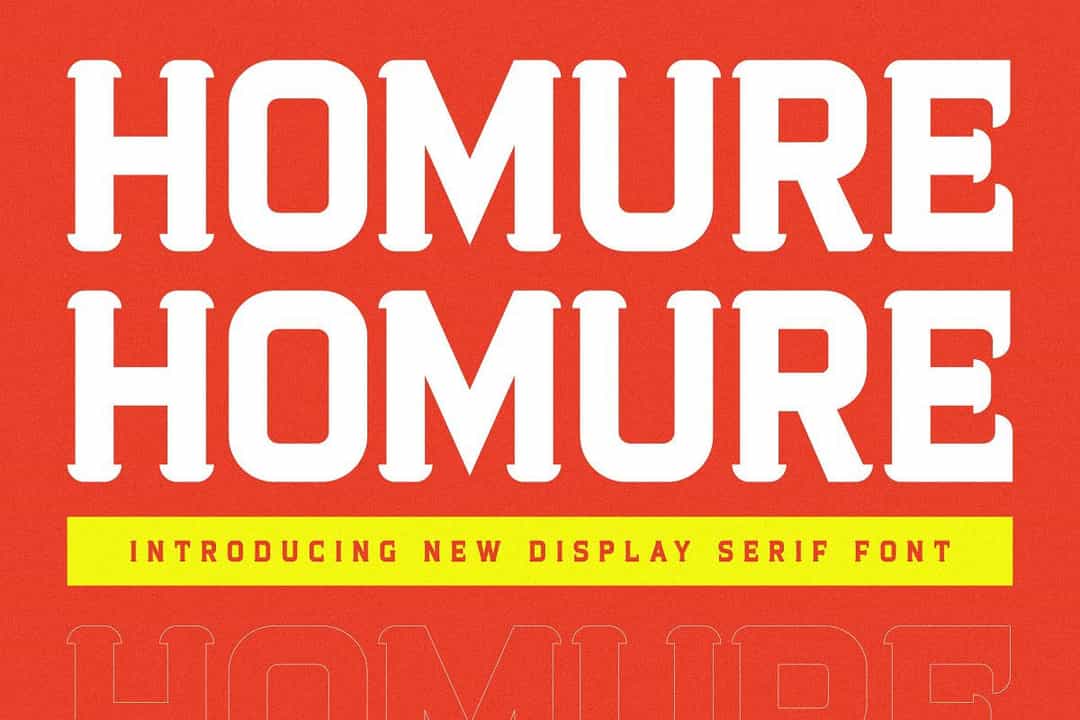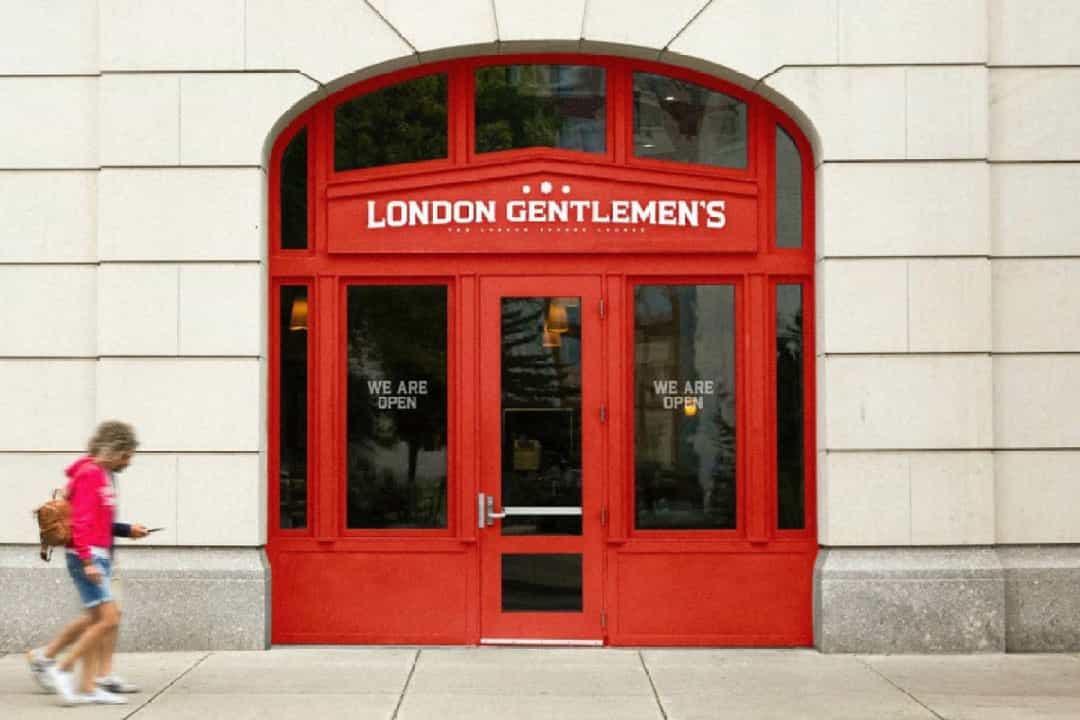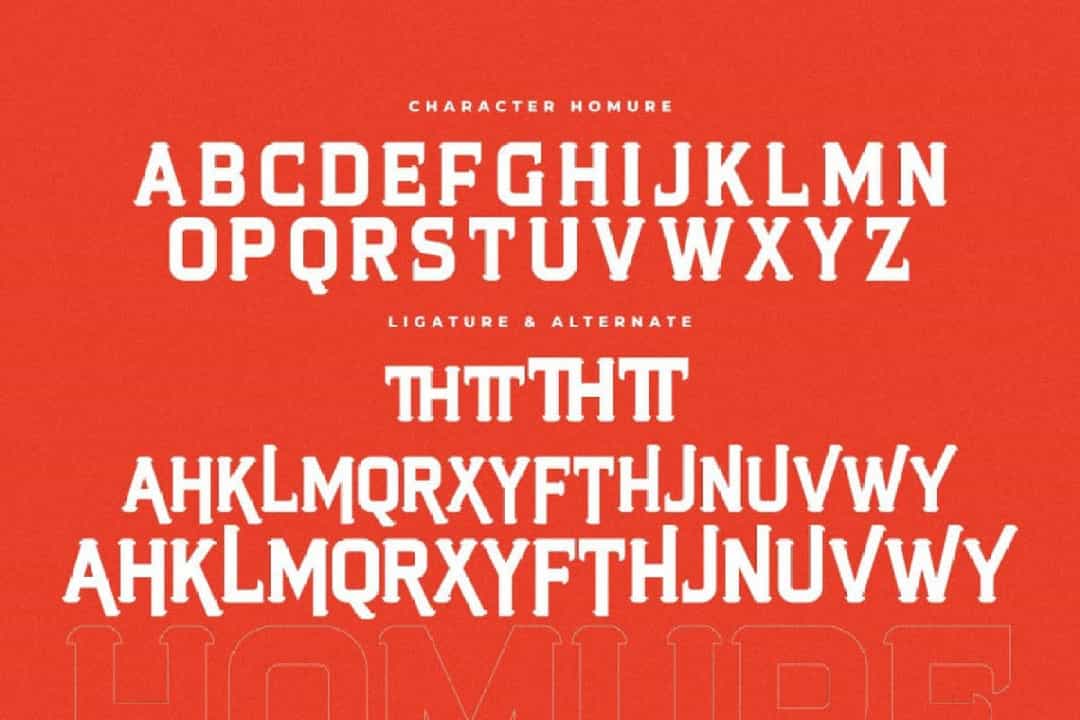
Homure is an elegant display serif font with contemporary style and flair, ideal for sophisticated logos, movie or book titles, fashion label clothing lines, magazines and lettering projects, lettering quotes etc. This typeface offers many possibilities and could work perfectly in many situations such as logo design.